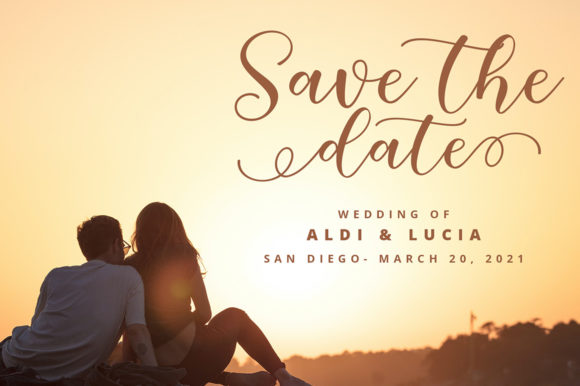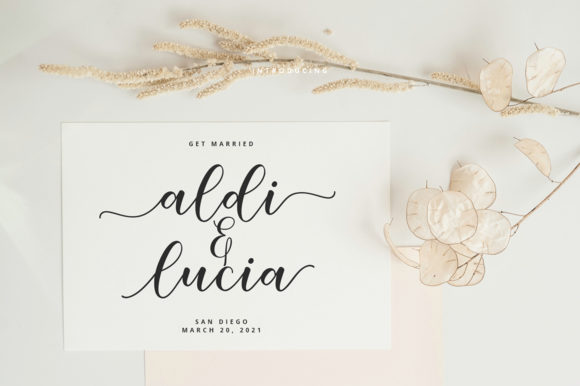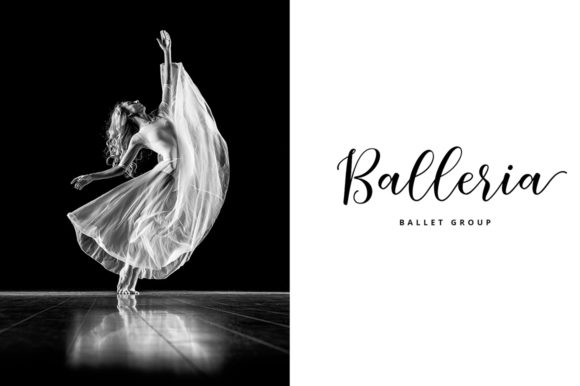
Hamidha Font
About Hamidha Font
Hamidha is a dazzling script font. This font is neatly crafted and highly detailed. Whatever the topic, this font will be a wonderful asset to your font library, as it has the potential to enhance any creation. This font is PUA encoded which means you can access all glyphs and swashes with ease!